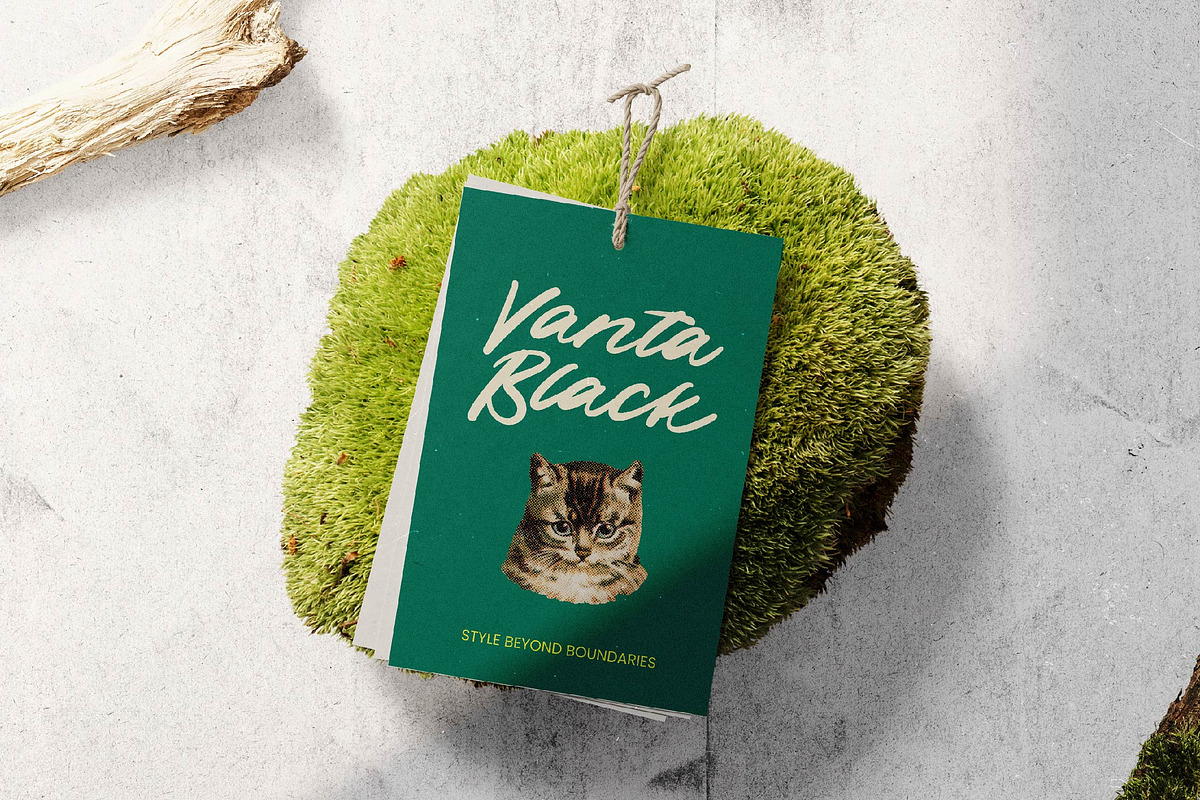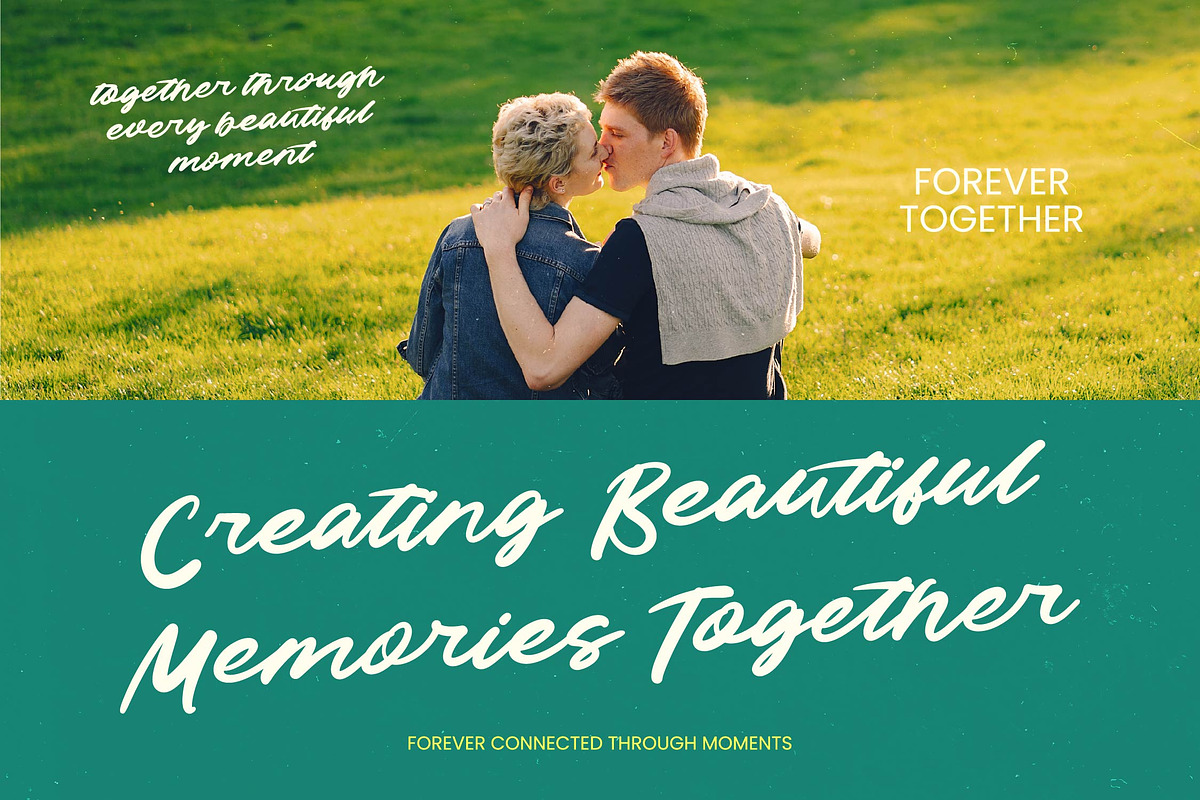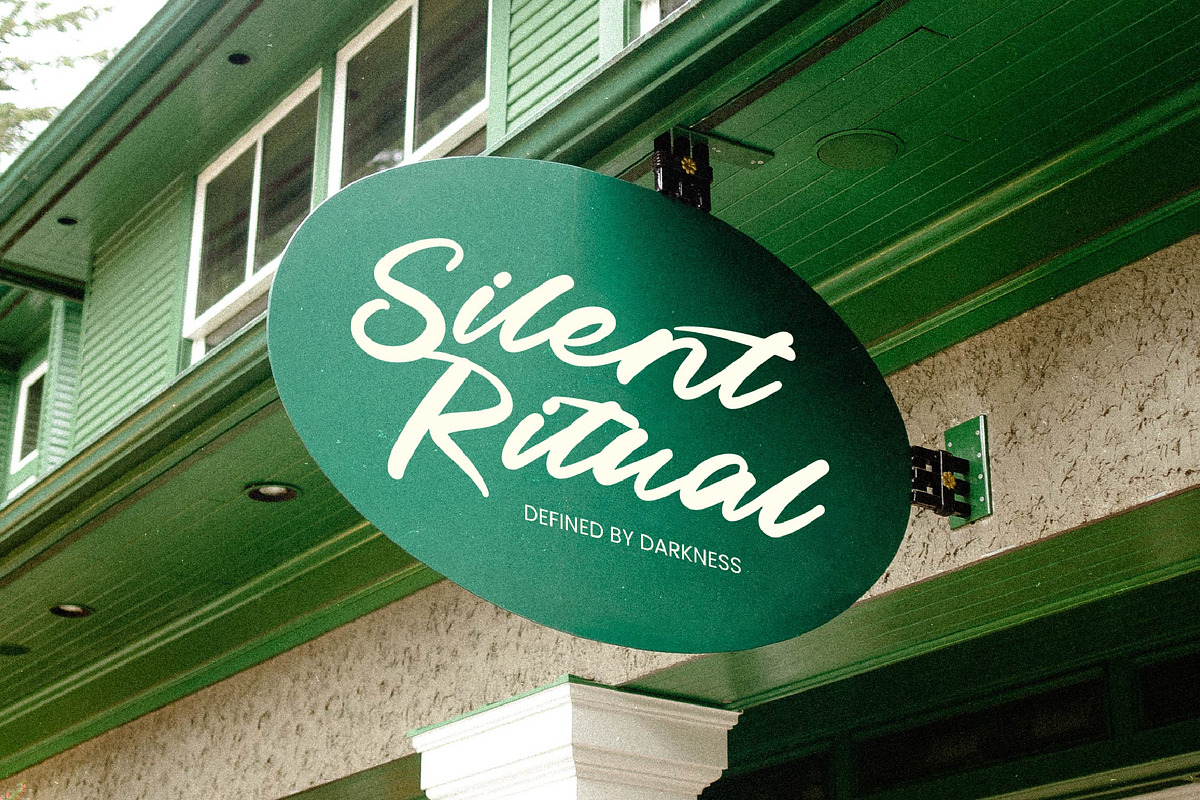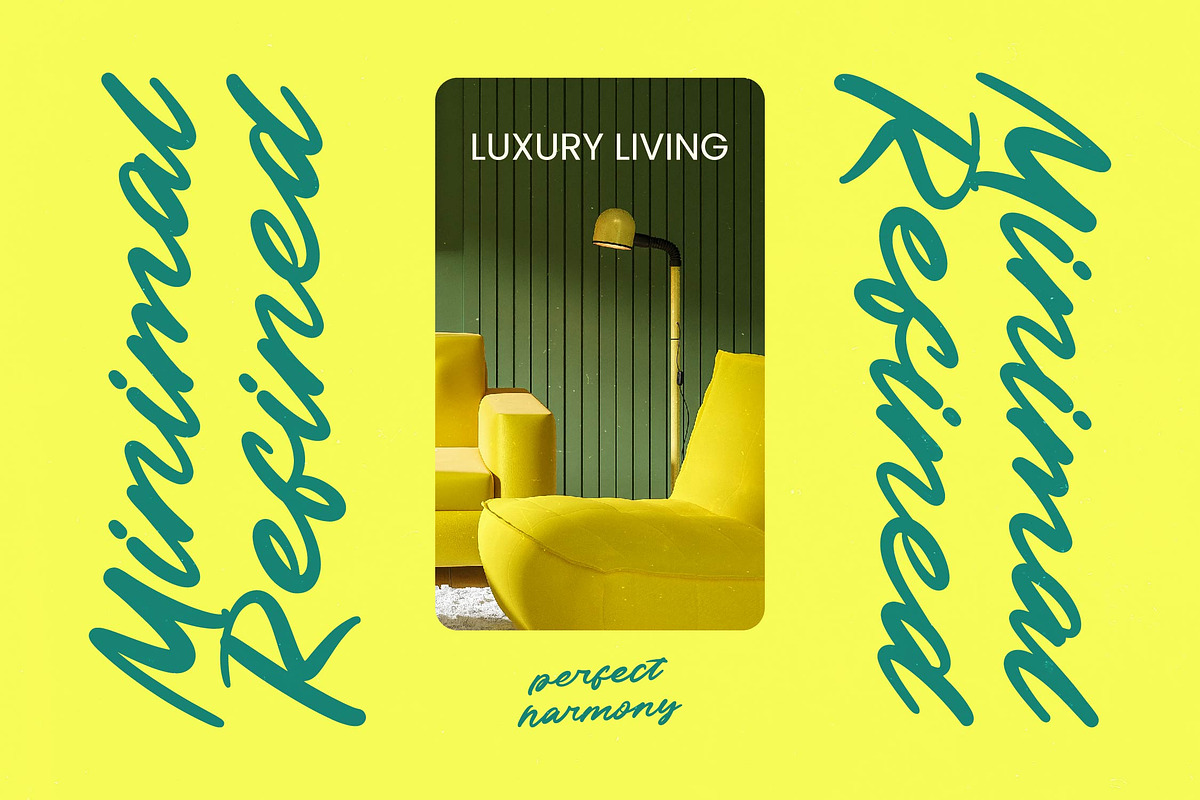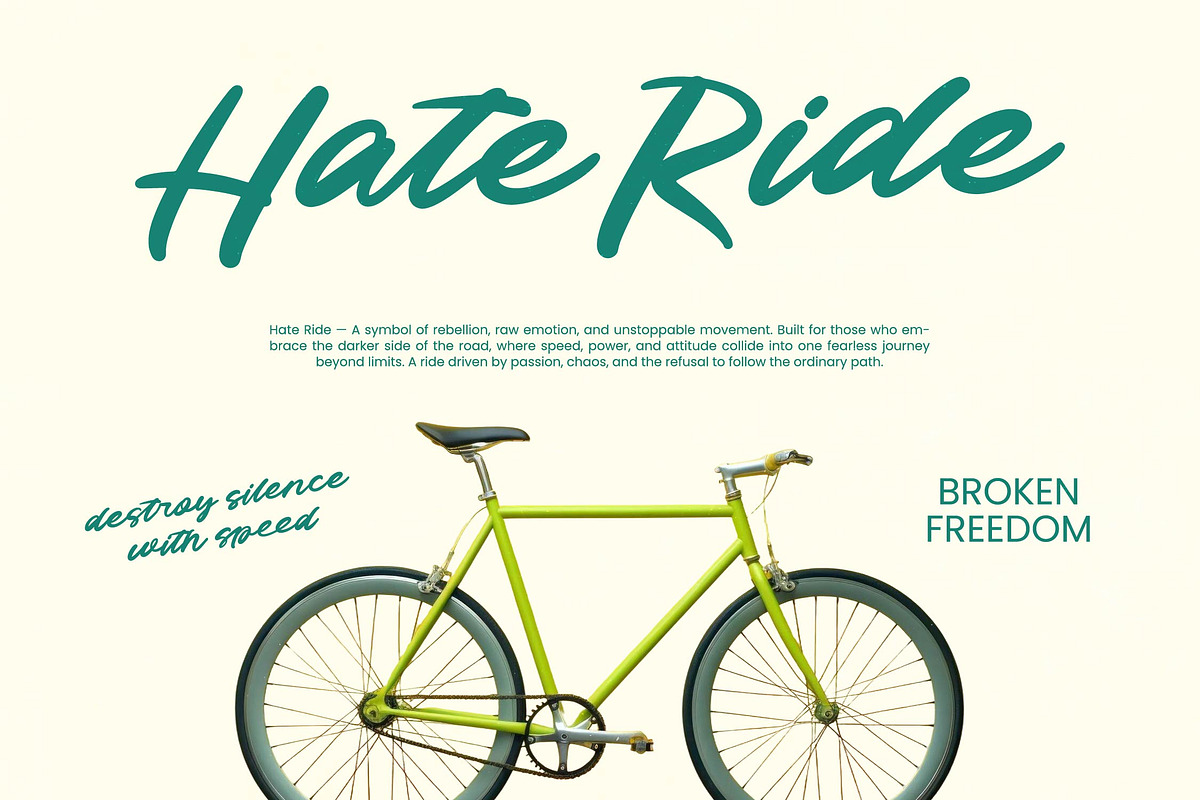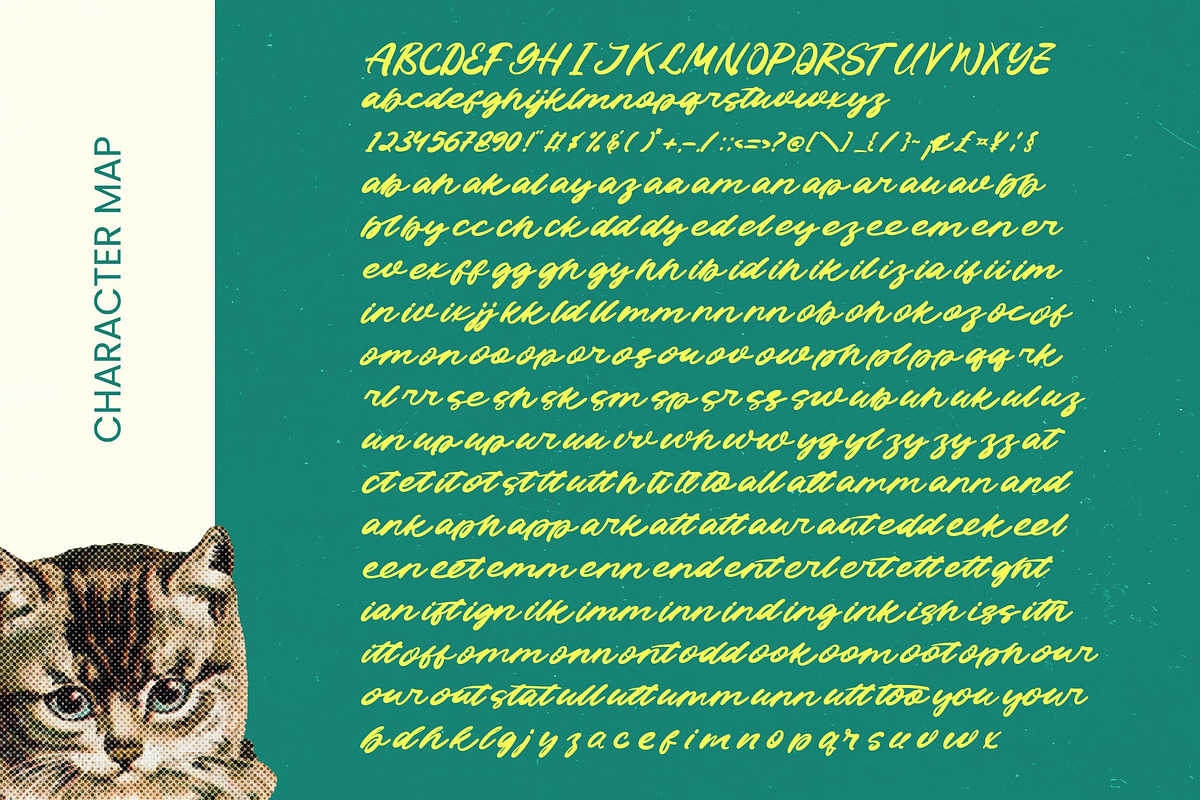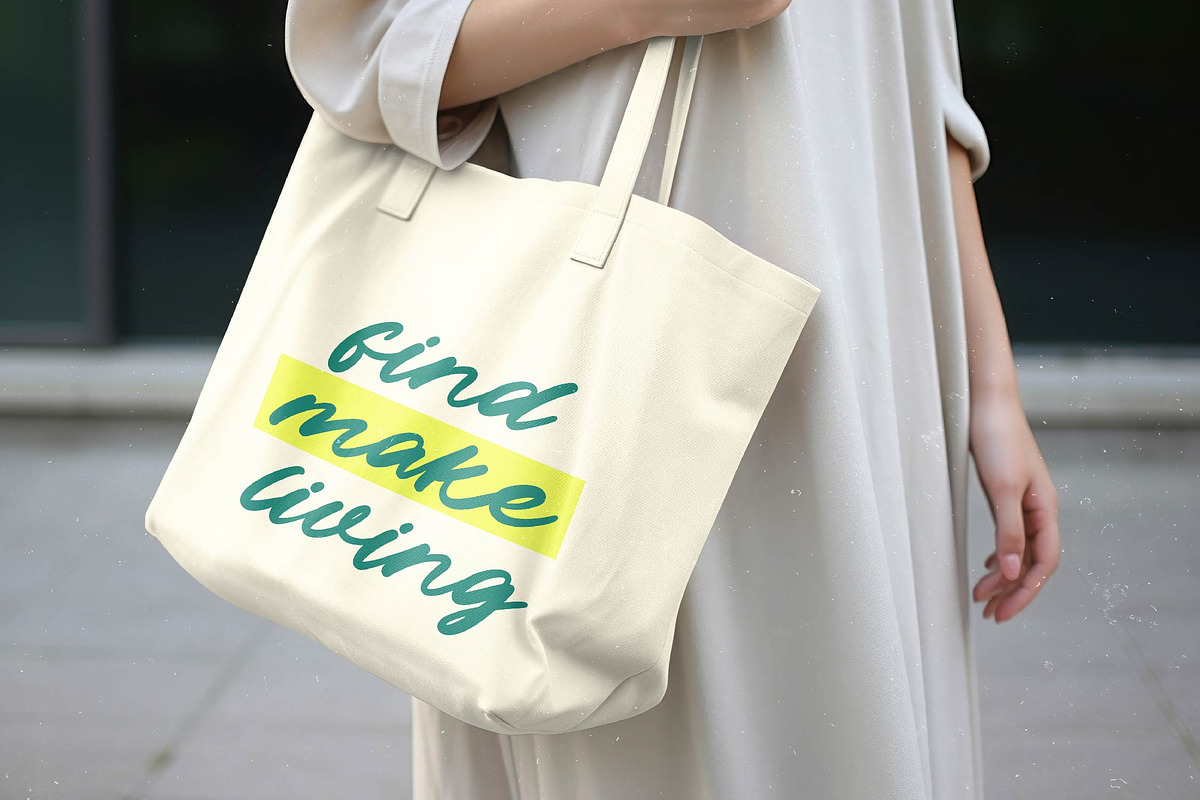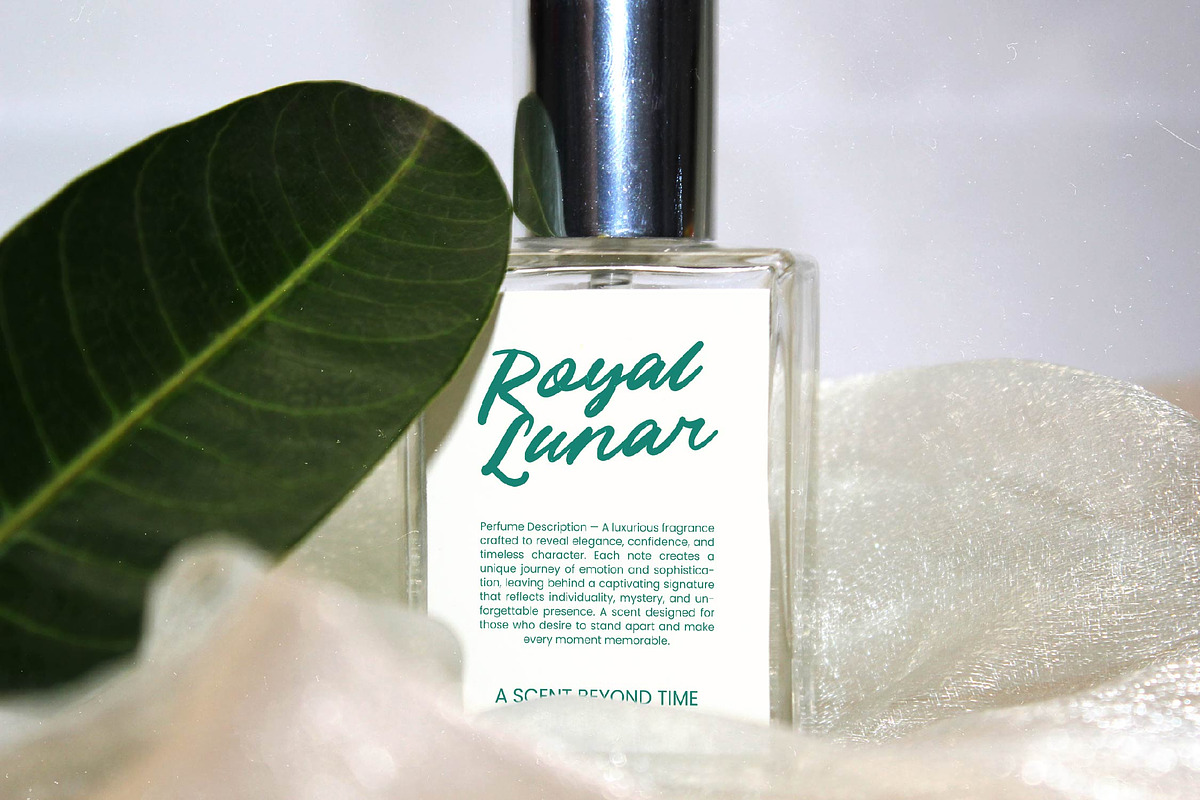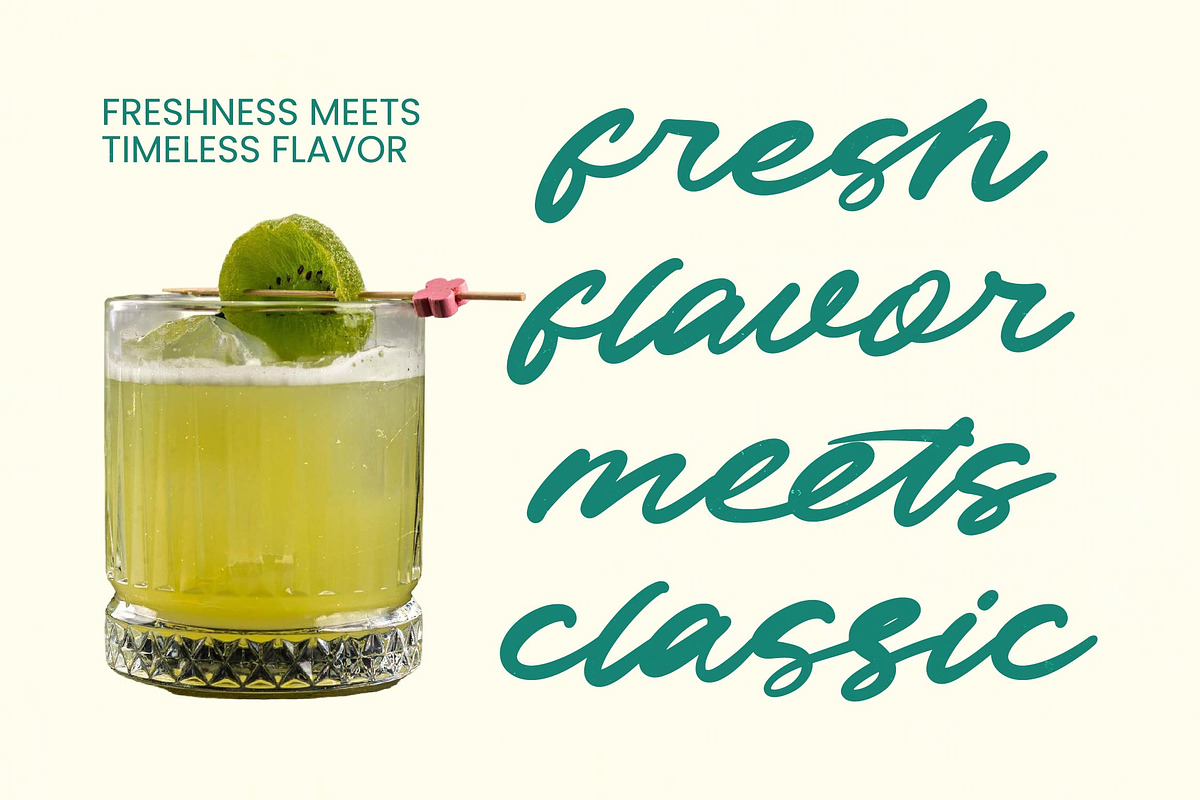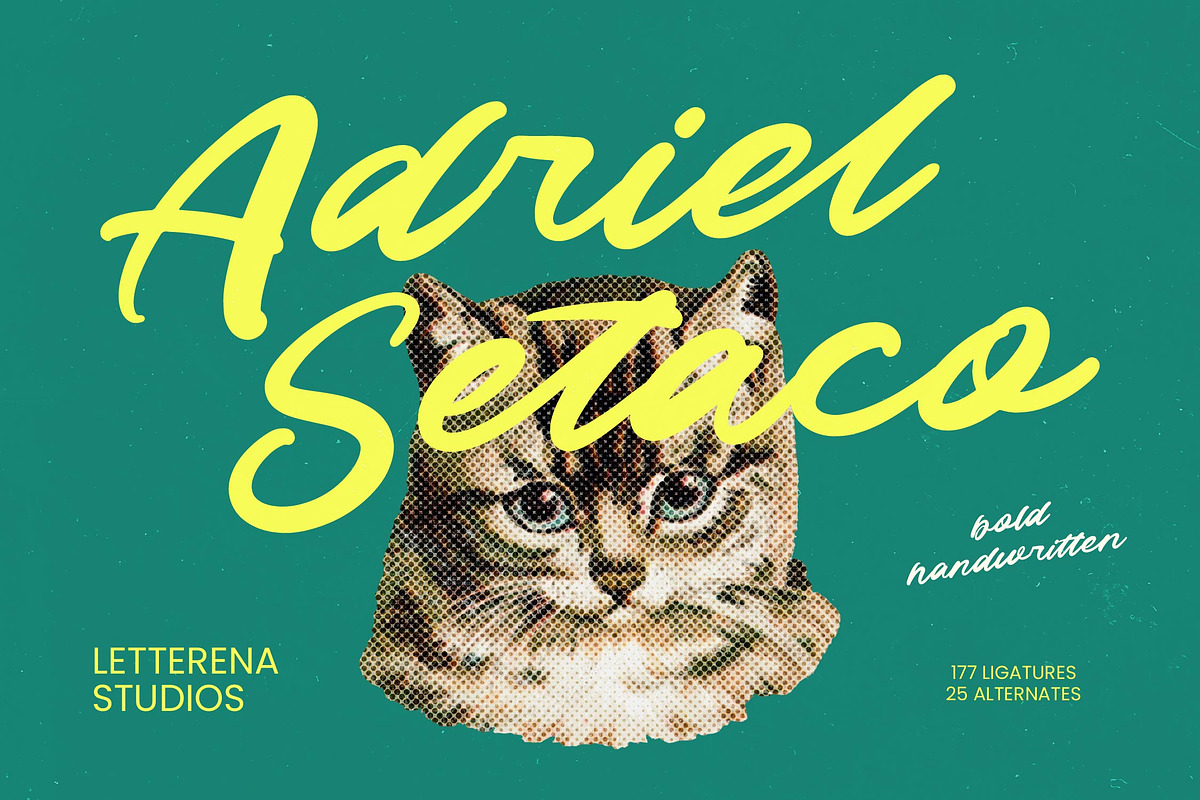
Adriel Setaco Bold Handwritten
Adriel Setaco - Bold Handwritten,Elevate your creative vision with a typeface that embodies raw energy and sophisticated artistry. Adriel Setaco - Bold Handwritten offers a dynamic aesthetic that captures attention through its fluid brushwork and organic flow. This typeface seamlessly blends the authenticity of hand-drawn calligraphy with a polished professional finish, providing a bold visual impact that is essential for contemporary graphic design.
Experience unparalleled versatility across a wide spectrum of high-end commercial projects. Adriel Setaco - Bold Handwritten is perfect for luxury branding, premium packaging, and impactful editorial design where personality is paramount. Whether you are developing distinctive logos, event invitations, or creative advertising, this font adds an expressive layer of sophistication that distinguishes your brand in a crowded market.
Unlock global potential with a robust typographic system designed for seamless international integration. Featuring 177 ligatures and 25 alternates, the font ensures a natural, custom-lettered look for every application. With its extensive multilingual support, Adriel Setaco - Bold Handwritten adapts seamlessly across global markets, making it incredibly versatile for international projects and diverse linguistic environments.
Invest in a premium design asset that guarantees long-term value and stylistic consistency for your portfolio. This high-contrast font acts as a strategic creative tool for designers who prioritize originality and aesthetic excellence. By integrating Adriel Setaco - Bold Handwritten into your workflow, you ensure your marketing collateral remains memorable and trend-forward, providing the unique character necessary to excel in today's competitive visual landscape.